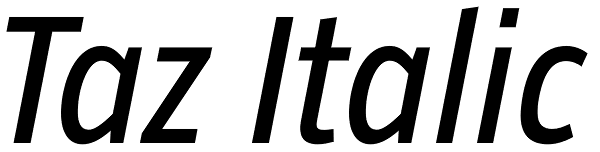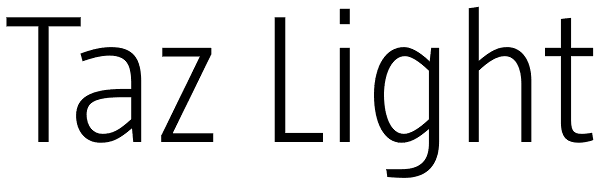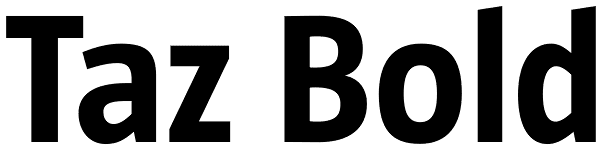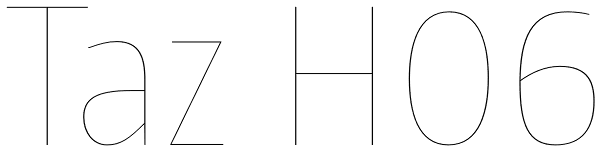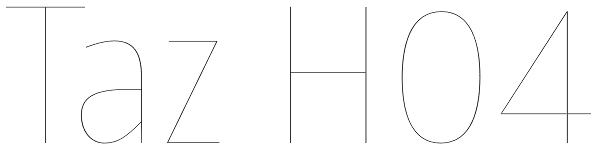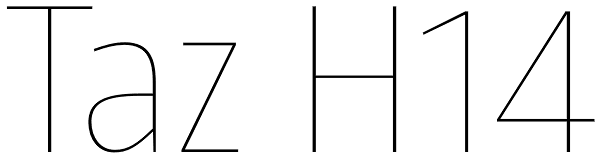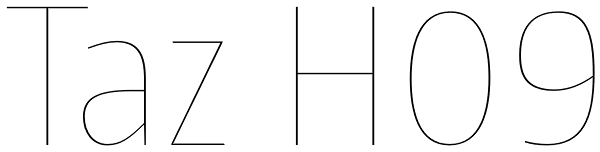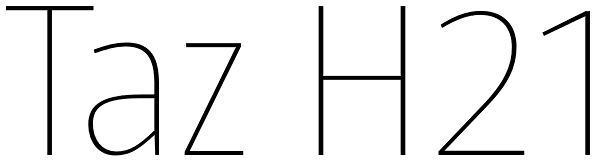
LF Taz III
The Taz type family was originally developed as a headline typeface for taz - short for Tageszeitung - a nation-wide German daily. It was, and still is, the cornerstone of the paper’s strong, trustworthy visual identity. Says Luc(as): "For a...